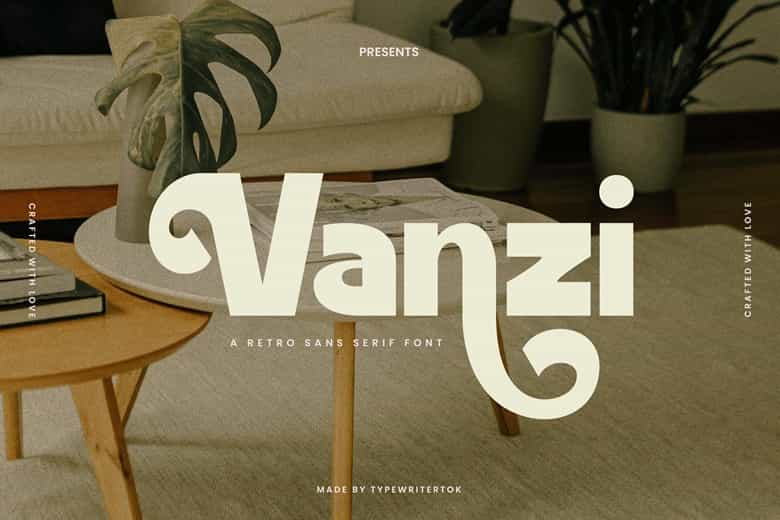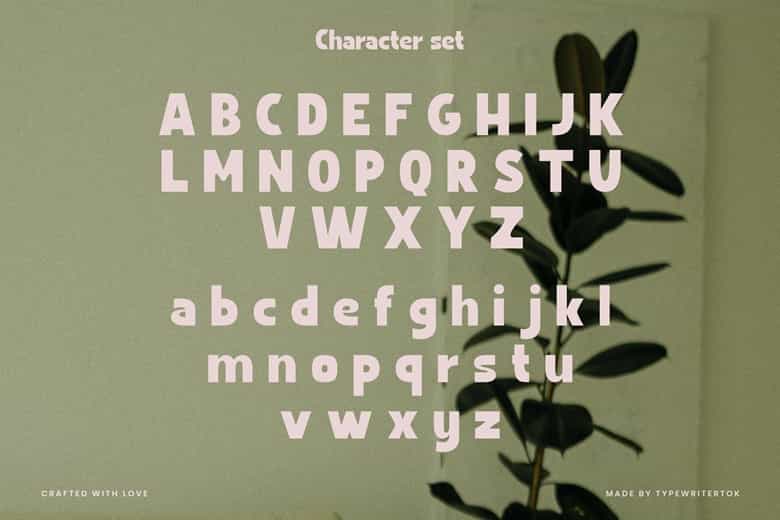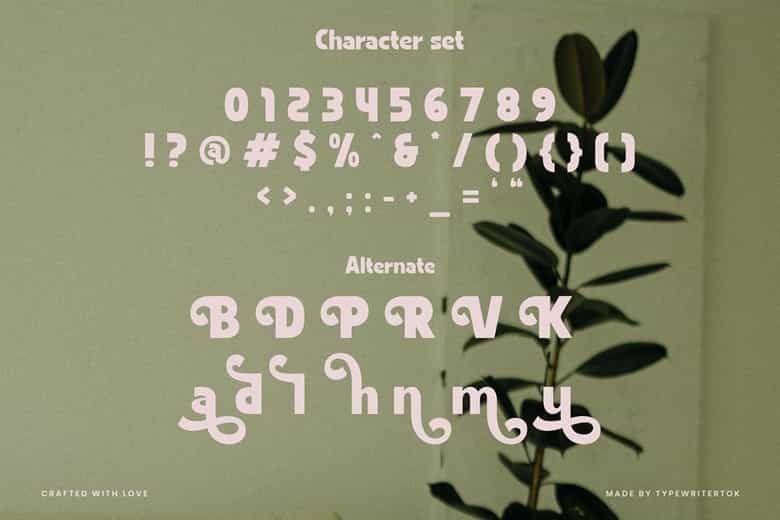
Vanzi is a new retro sans serif font that is able to seamlessly unite dated style with a contemporary large flair. This new character to headlines, branding visuals, and logos comes courtesy of its sleek, playful lines and flamboyant swashes.